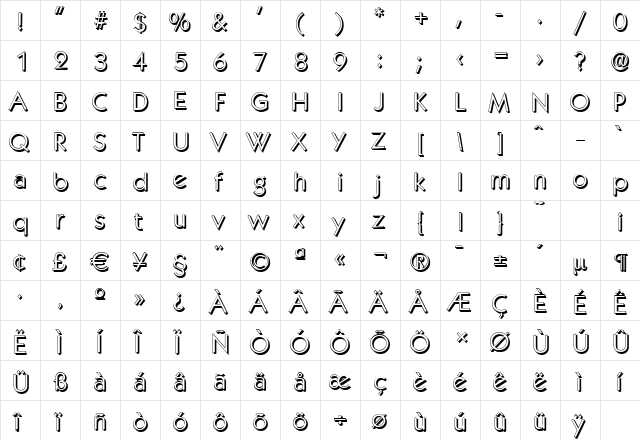
KoblenzShadow-Light Regular
Design Context for KoblenzShadow-Light Typeface
KoblenzShadow-Light is built around its visual character rather than neutral utility — its distinctive forms are designed to make an impression at display sizes. Its slender proportions lend an understated elegance to any composition.
Font Pairing: Pair with a clean neutral sans-serif for body copy to let KoblenzShadow-Light's character lead without overwhelming the composition.
Pro Tip: Use KoblenzShadow-Light exclusively at display sizes — it was designed to be seen, not read at length. Let a neutral companion handle body copy.